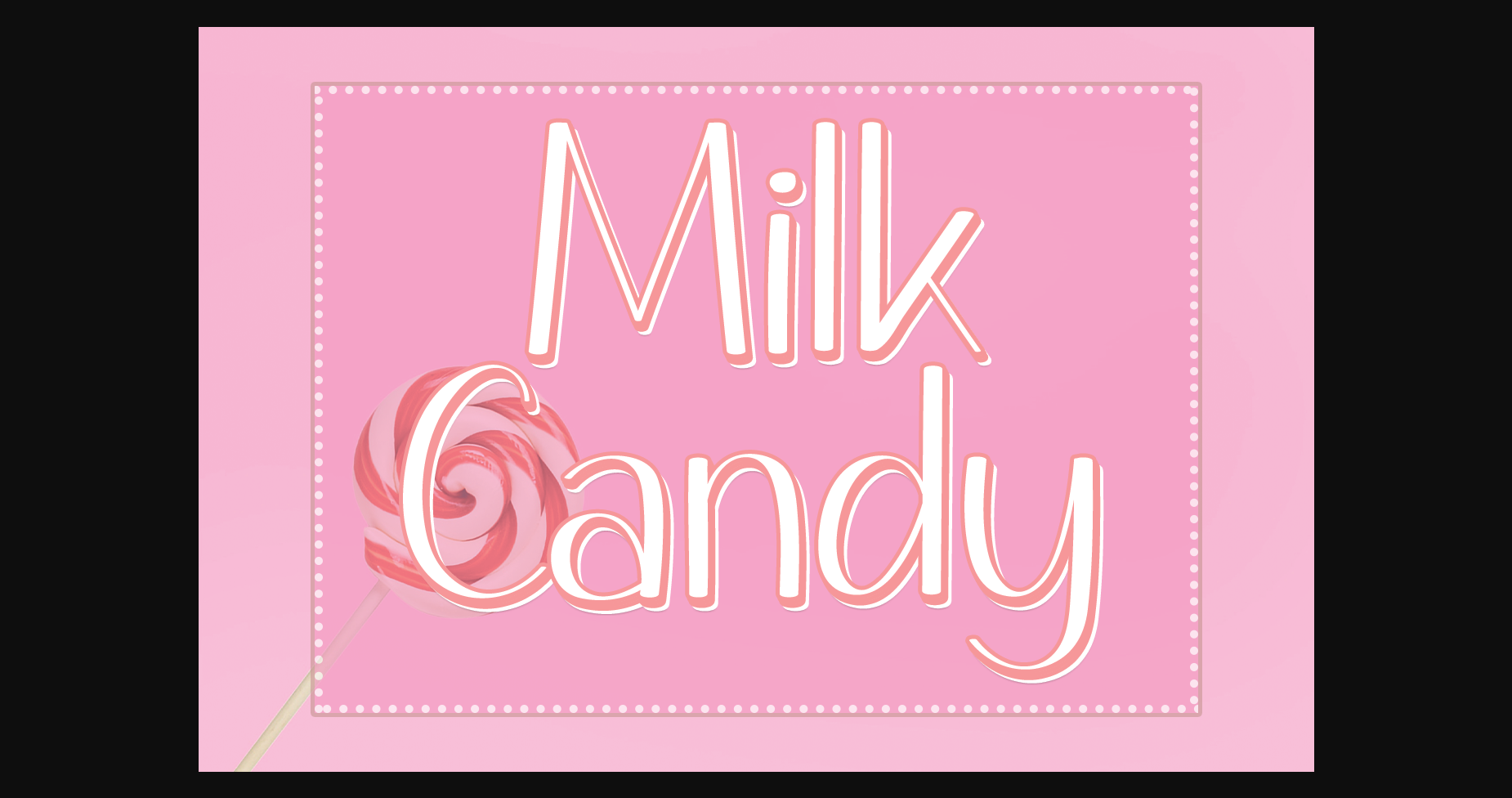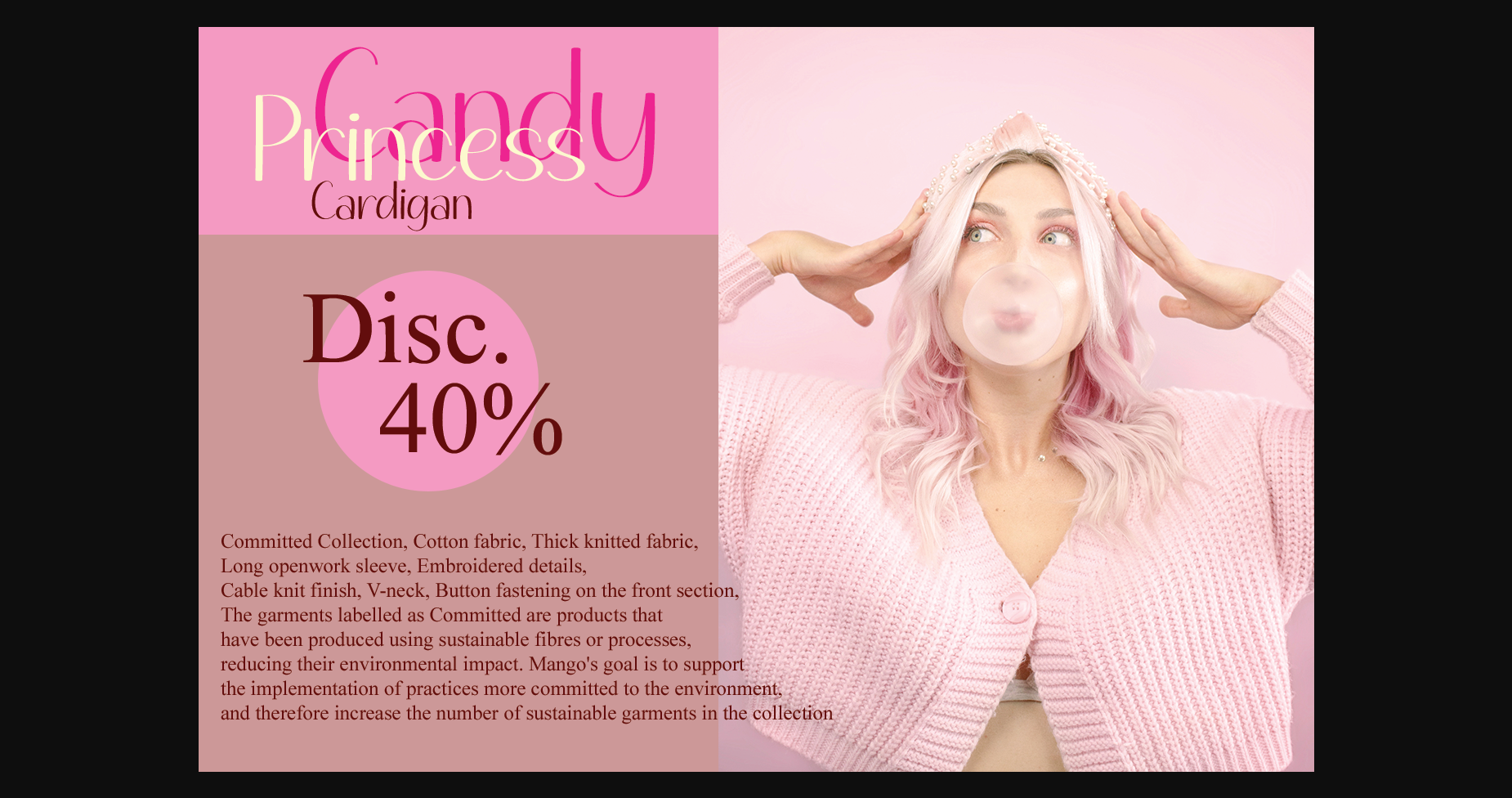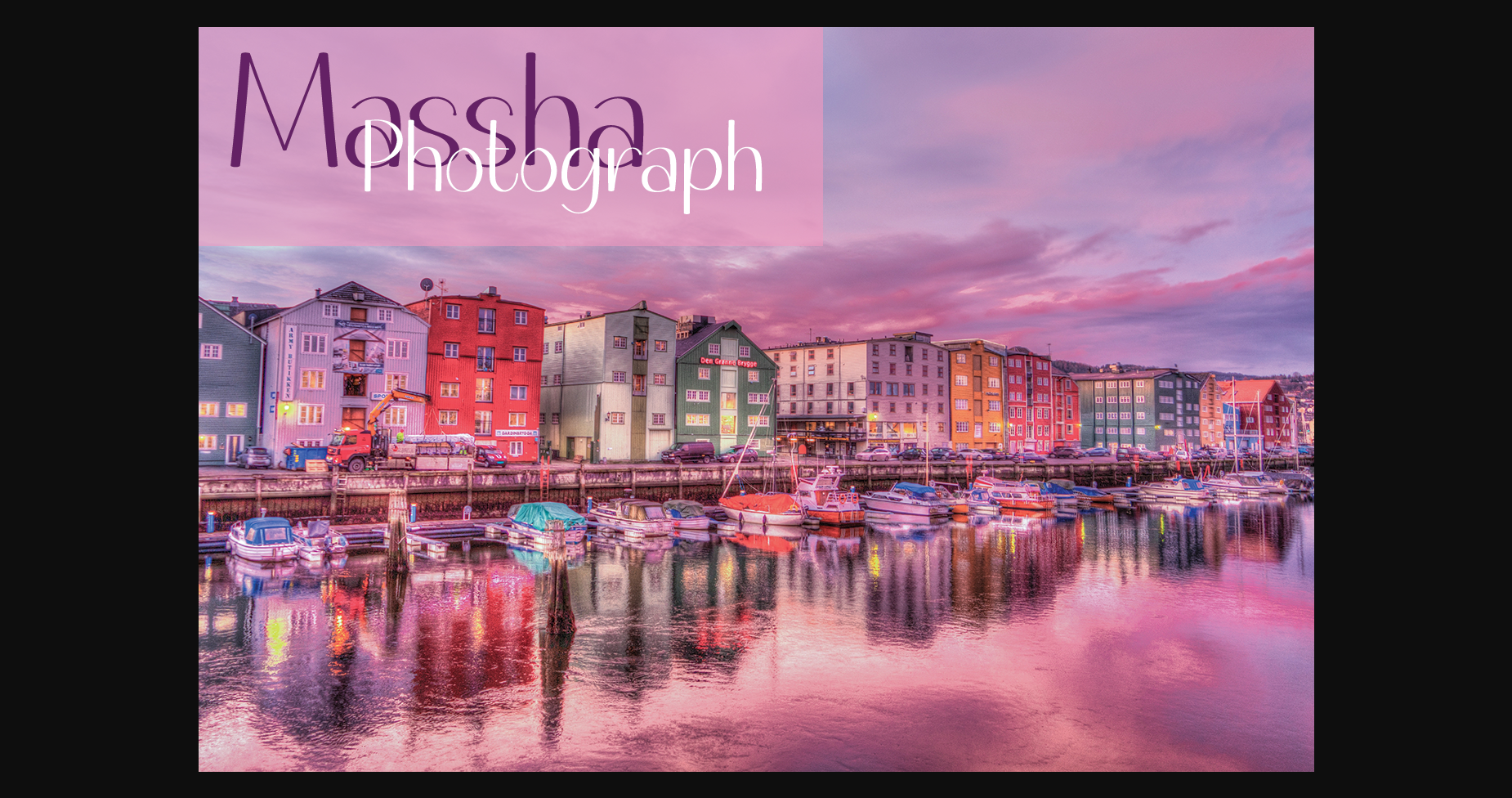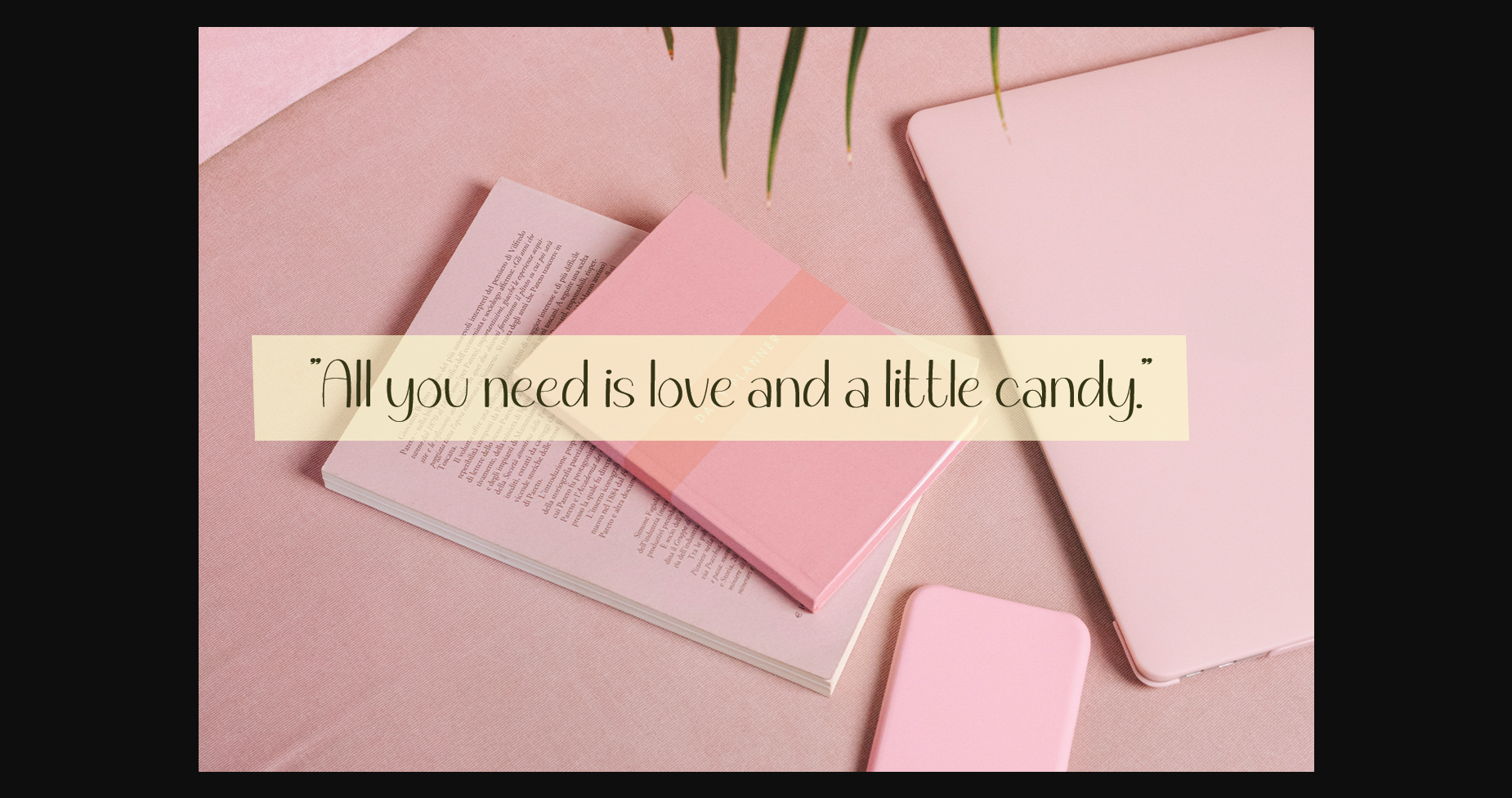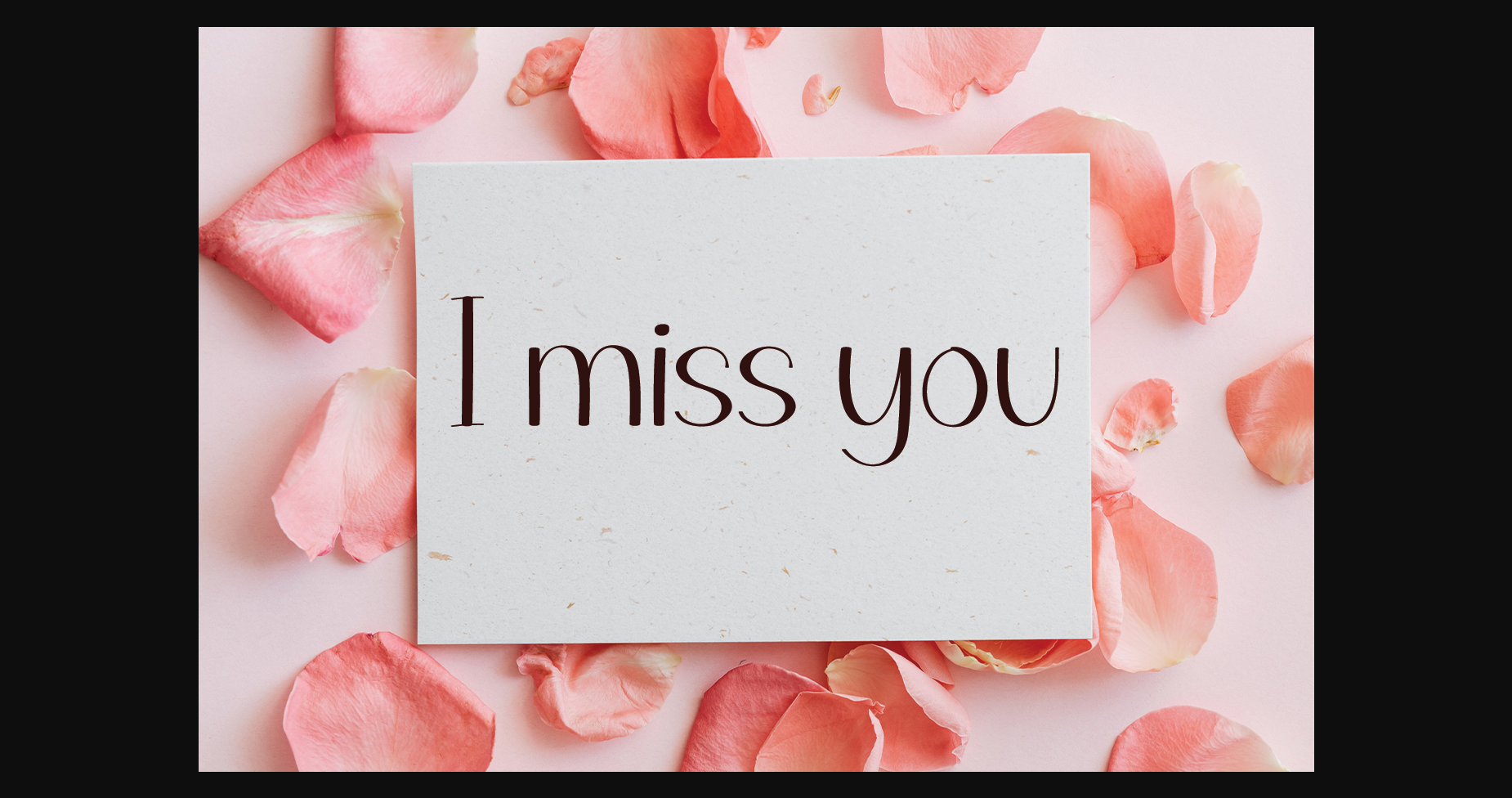
Milk Candy Font
About Milk Candy Font
Kitty Cat is a sans serif font designed to look cute and fun. Whether you’re using it for crafts, digital design, presentations, or making greeting cards, this font has the potential to become your favorite go-to font, no matter the occasion!